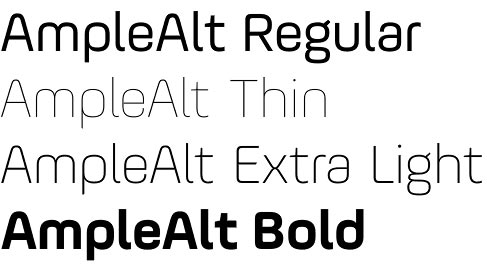
AmpleAlt font
AmpleAlt font by Aakash Soneri (Soneri Type foundry) is an alternate version of the Ample monoline Sans family. AmpleAlt font family shares the same Ample’s distinctive features: clean shapes, a combination of straight-line strokes and smooth curve junctions, evenly flowing lettering, excellent legibility and optical comfort. The major novelty in the Ample design that’s manifested in the AmpleAlt family are the smaller letter apertures giving the type even more fluent and smooth appearance. AmpleAlt is a display typeface fitting perfectly on luxury packaging, branding, logos, magazines, etc., but it also has an excellent legibility and is just as good looking in smaller text sizes.
AmpleAlt font family comes in six upright weights: Thin, Extra Light, Light, Regular, Medium and Bold.